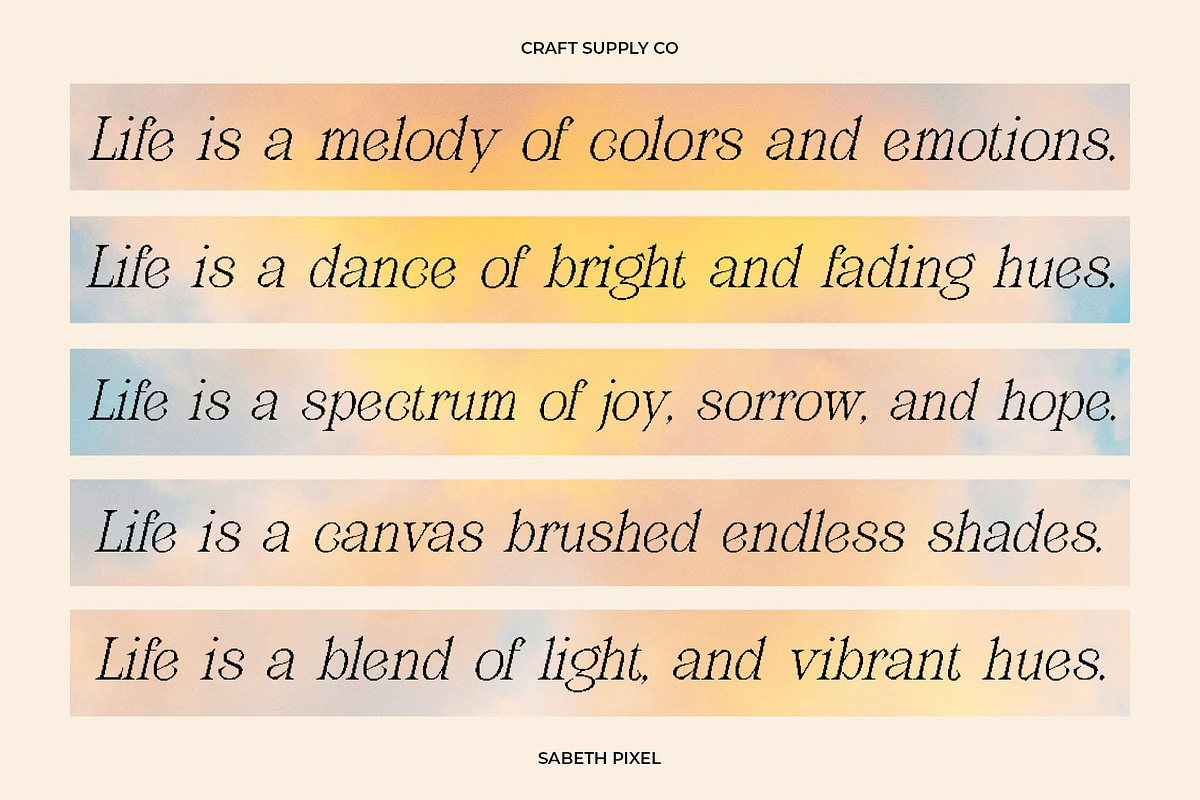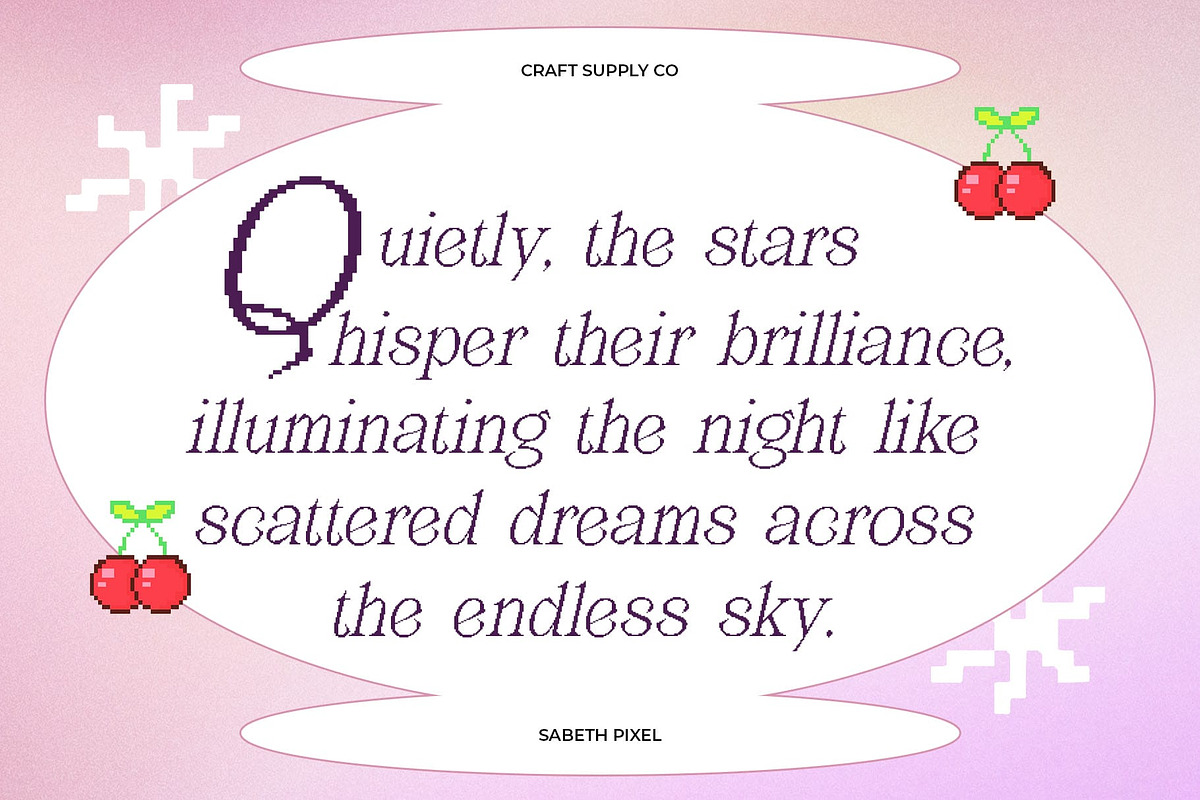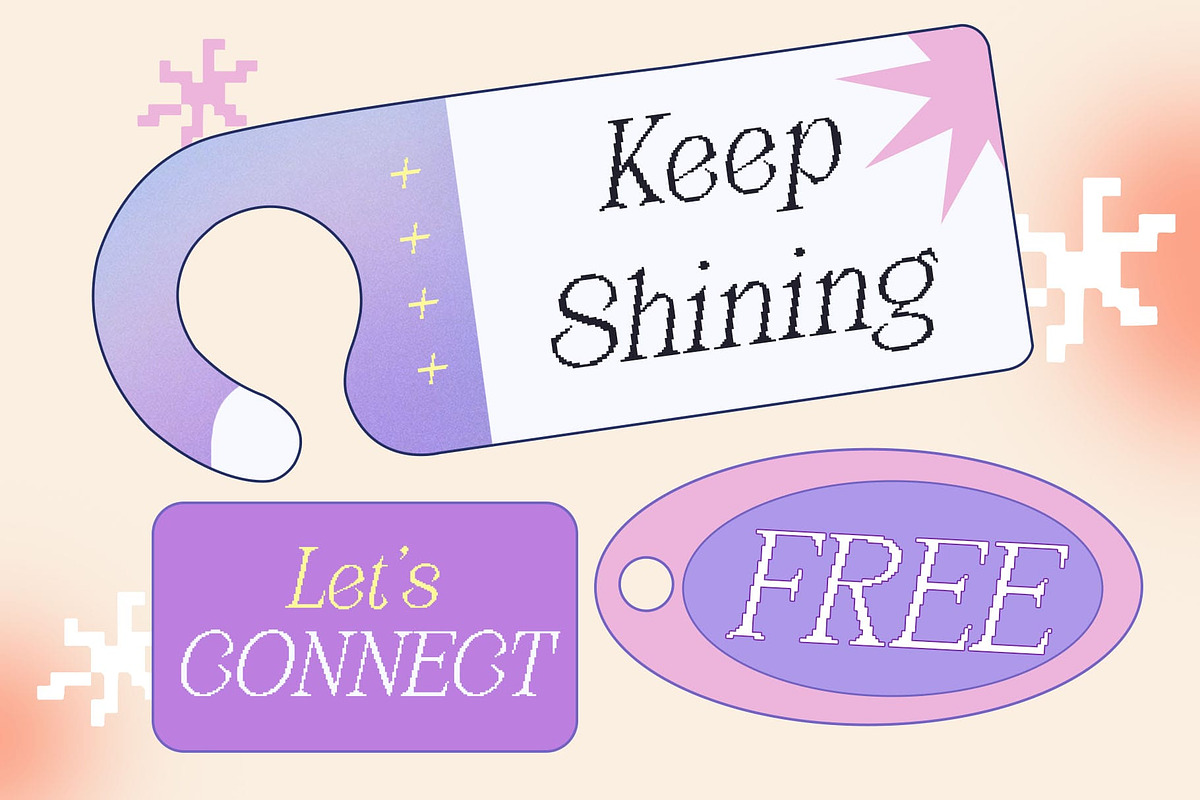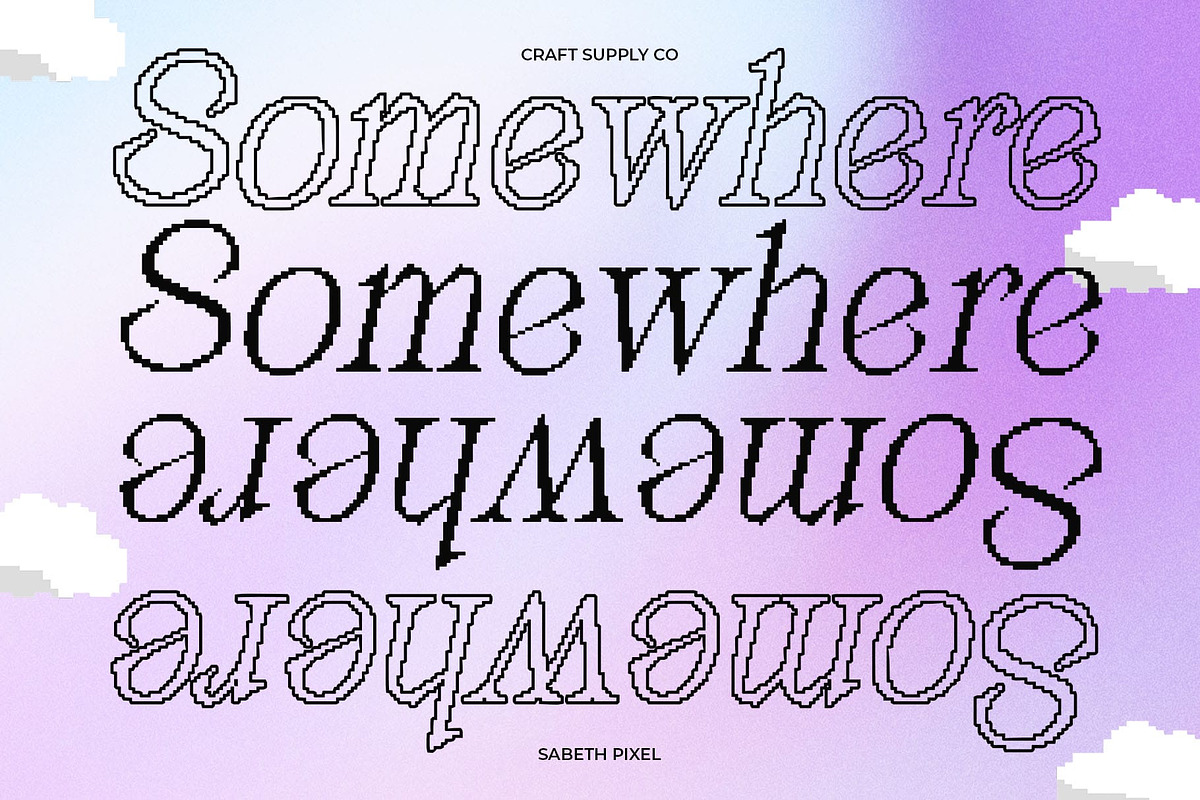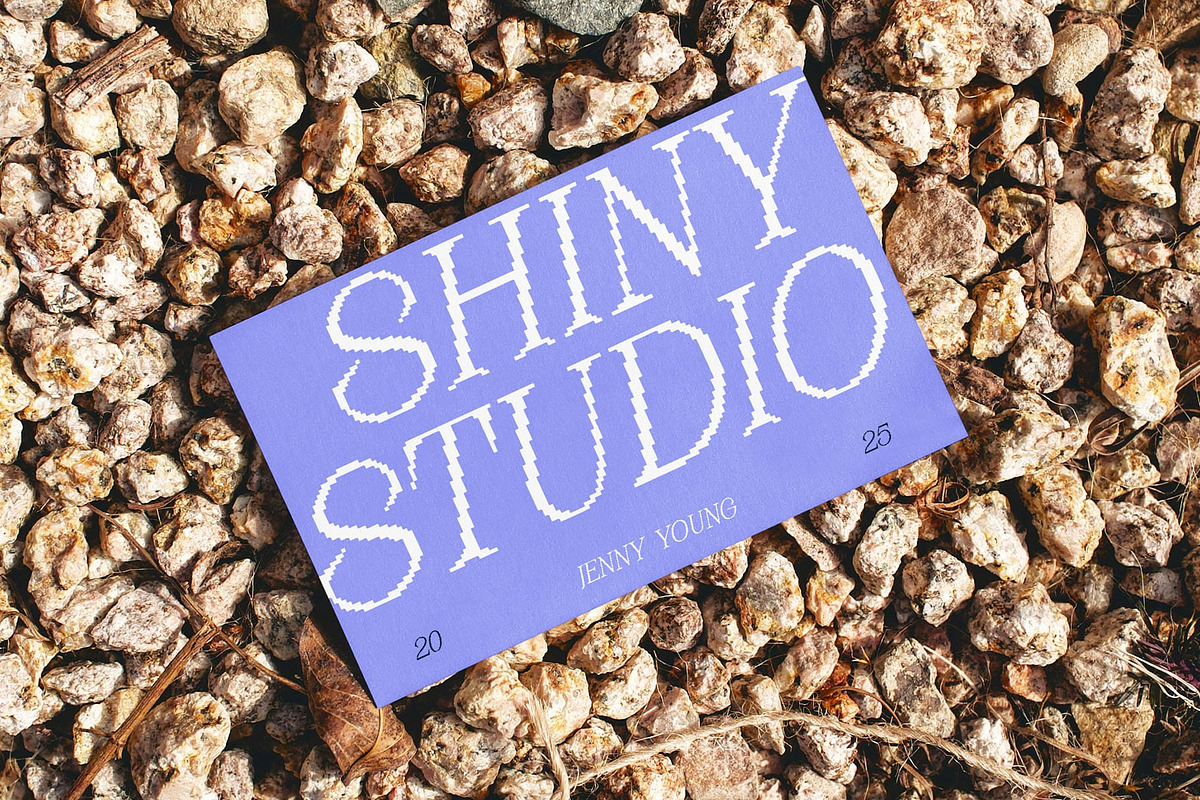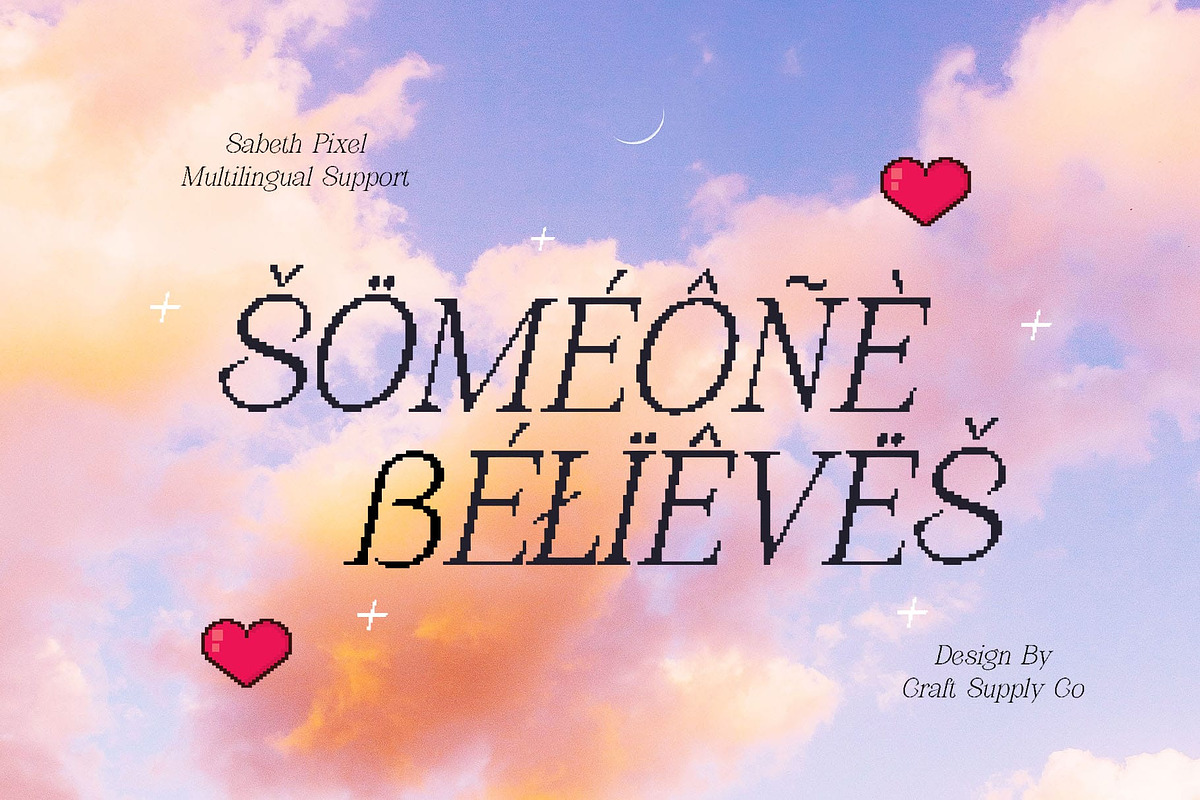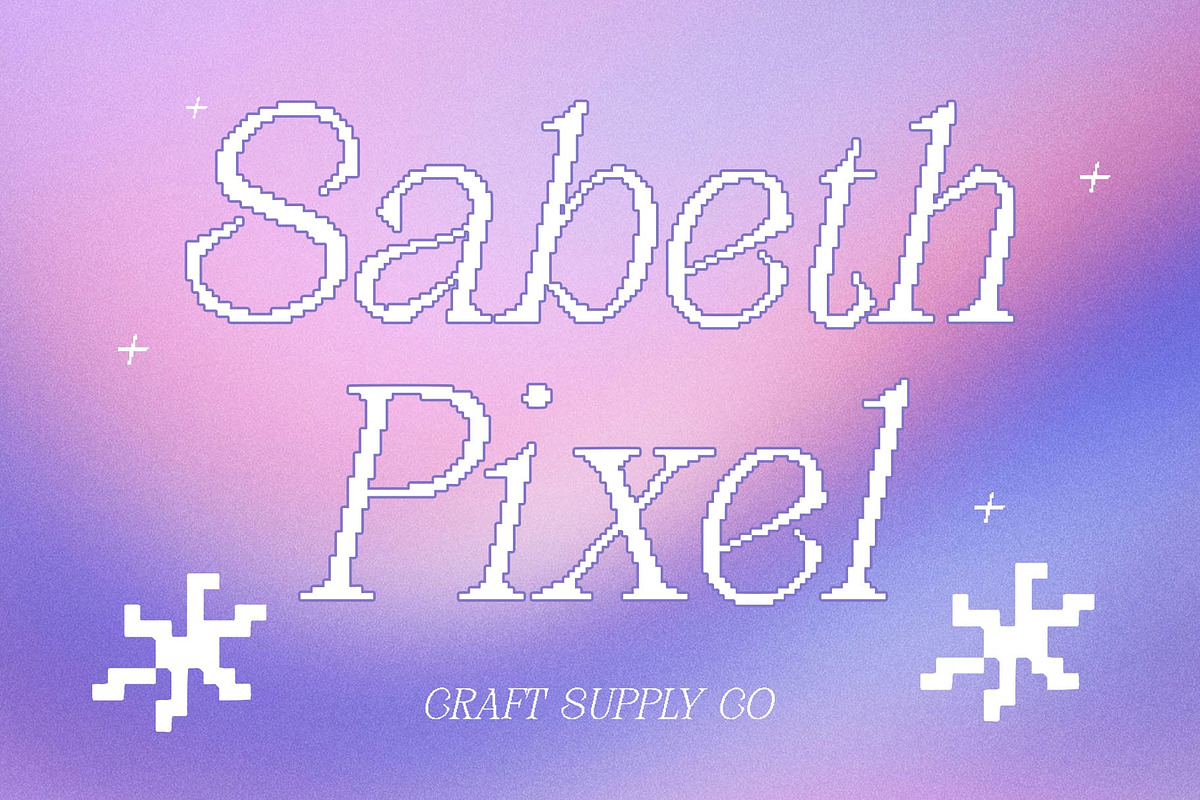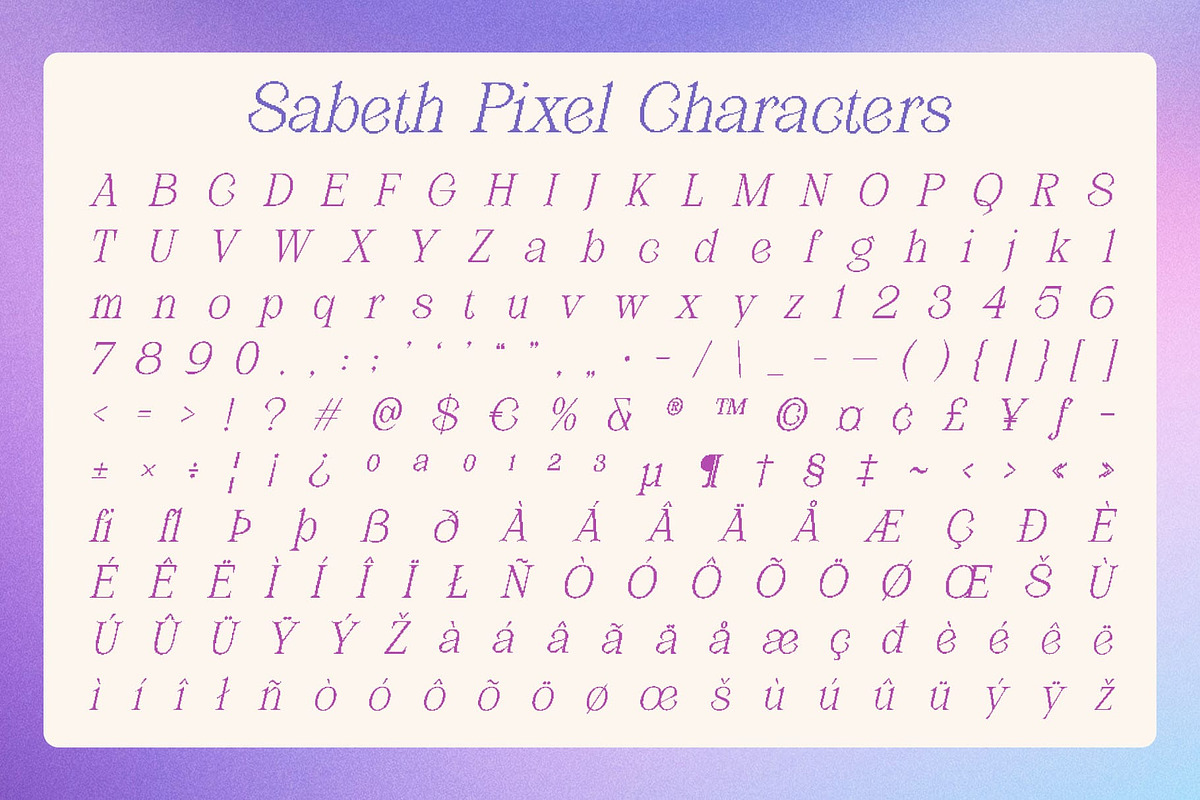
Sabeth Pixel
Sabeth Pixel Font: Where Classic Elegance Meets Digital Innovation
Modern Serif with a Pixel Effect Sabeth Pixel is a contemporary serif font that blends classic sophistication with a distinct pixelated texture. This fusion of timeless elegance and digital aesthetics makes it stand out in both modern and retro-inspired designs, delivering a unique balance of tradition and technology.
Pixel Texture for a Futuristic and Nostalgic Feel The pixel effect adds a layer of digital nostalgia, making this font perfect for projects that need a futuristic, tech-inspired, or retro-digital touch. Whether for gaming, digital branding, or tech startups, Sabeth Pixel conveys a sense of modernity with a hint of vintage computing charm.
Minimalist Yet Striking Design Despite its pixelated details, Sabeth Pixel retains a clean, refined, and structured serif form, ensuring readability while maintaining an exclusive and polished look. This makes it a great choice for editorial layouts, high-end branding, and stylish packaging.
Versatile for Digital and Print Applications Ideal for logos, website designs, advertising, and creative projects, Sabeth Pixel brings an innovative and sophisticated character to any work. Whether you’re designing for modern media or evoking a nostalgic tech aesthetic, this font offers the perfect blend of elegance and digital edge.